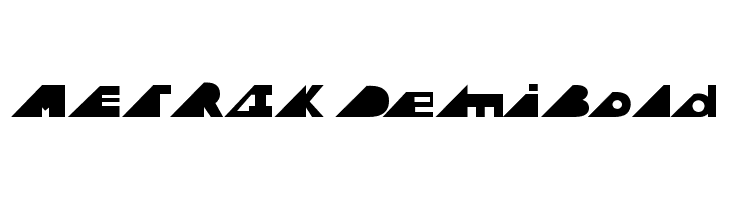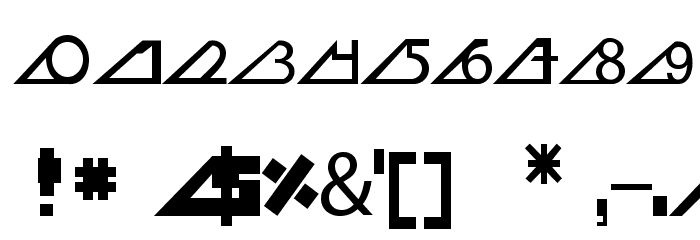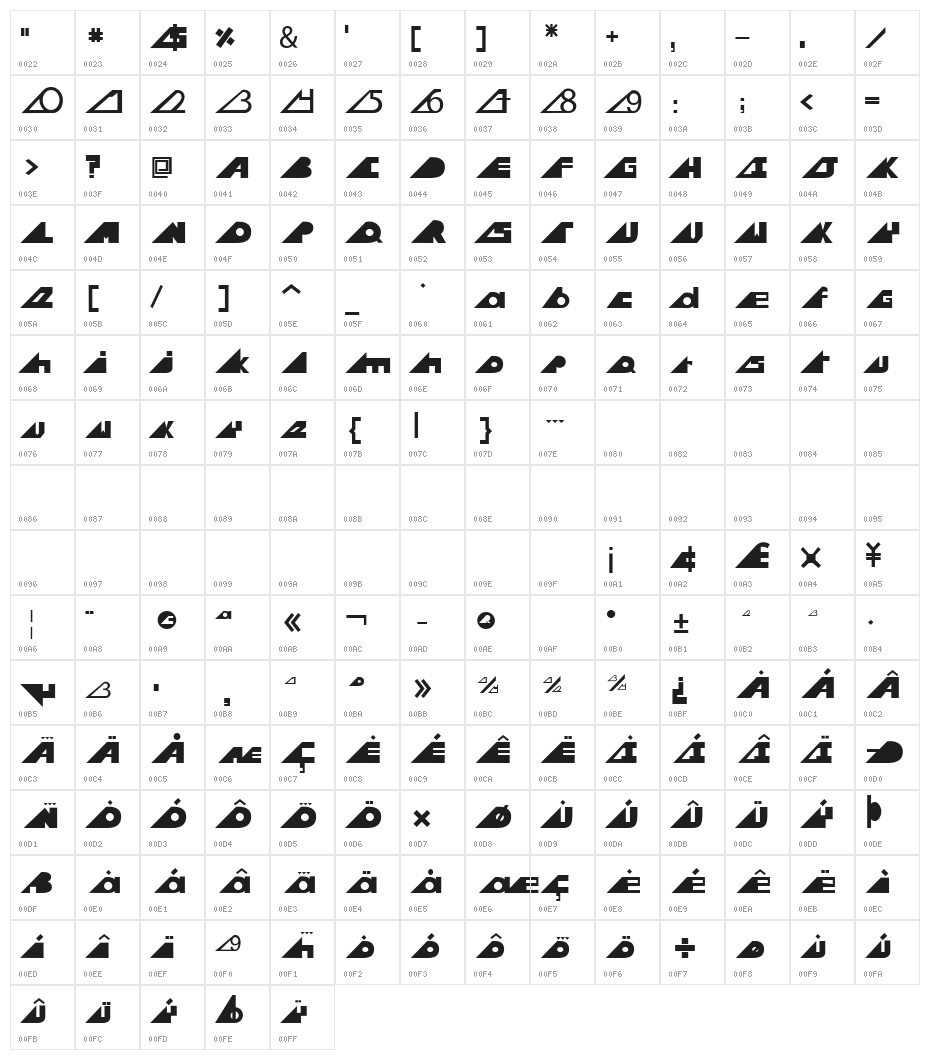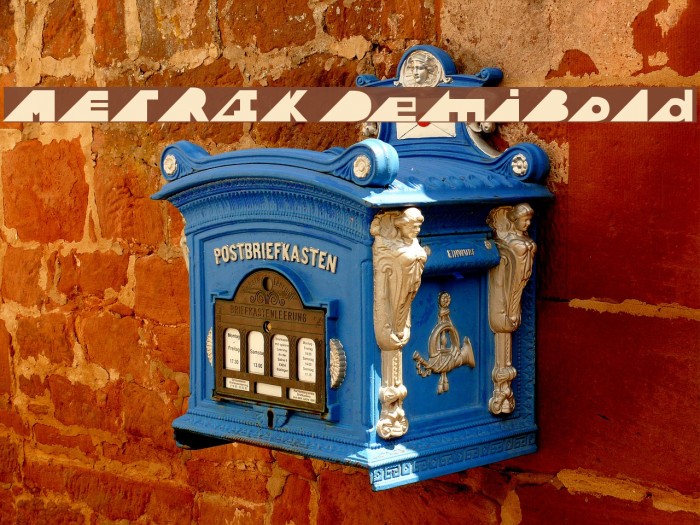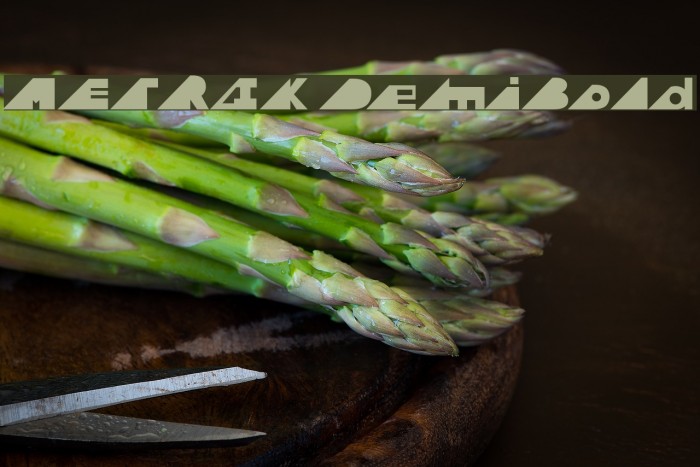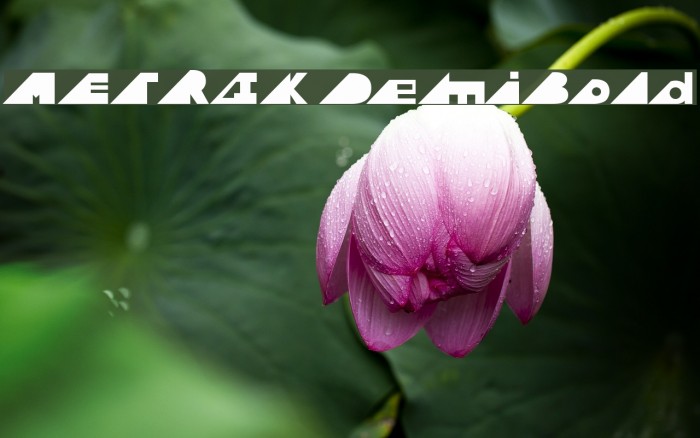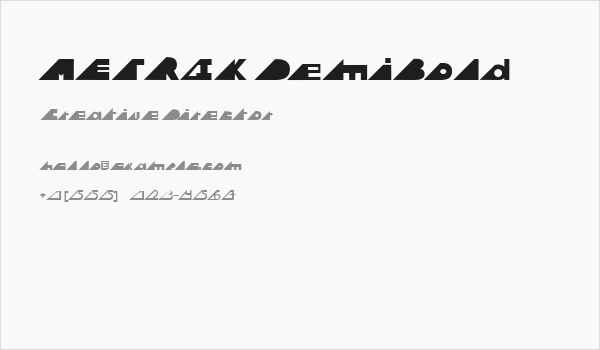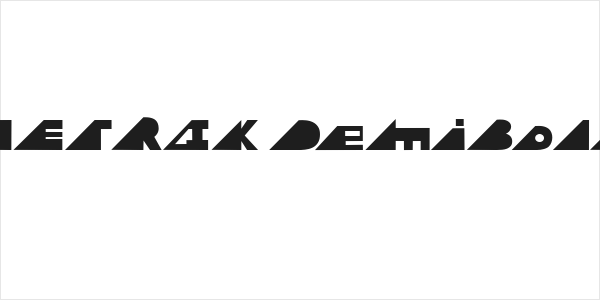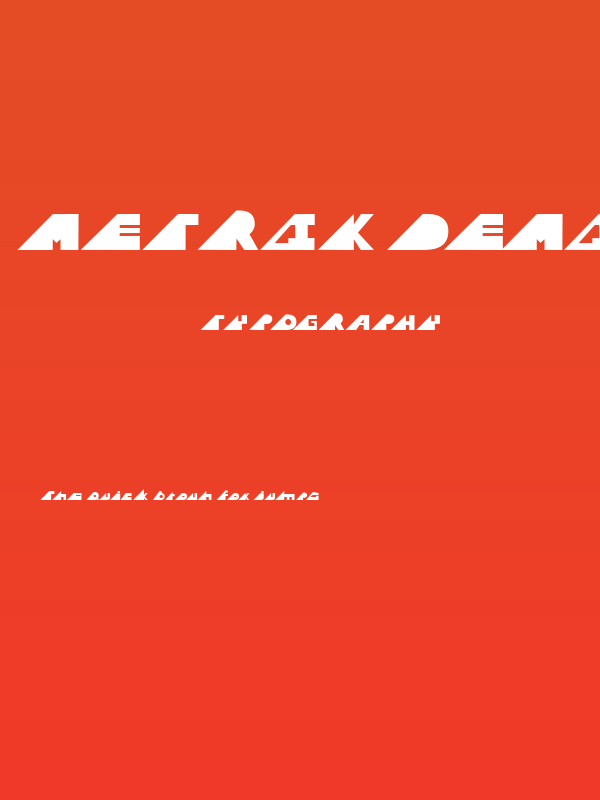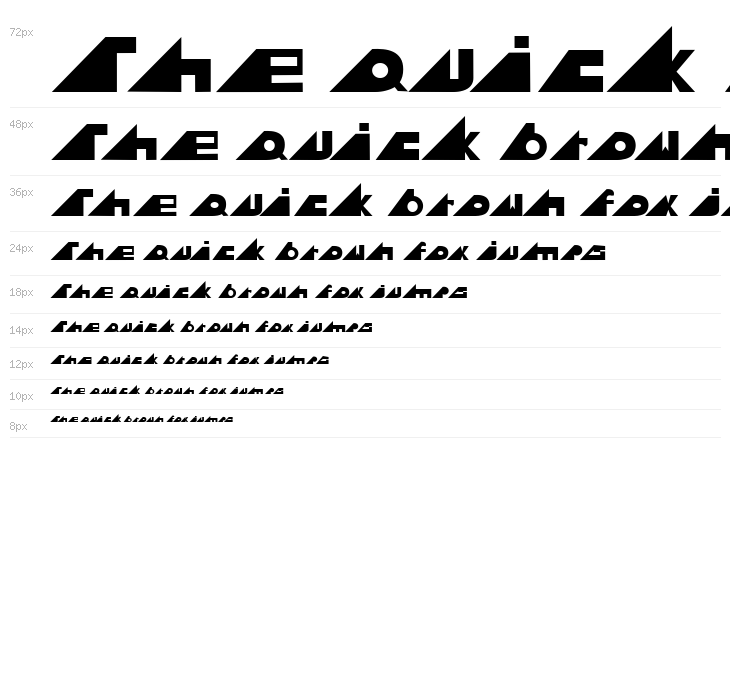
METRIK DemiBold Font
This font features a bold and geometric style with sharp angles and a futuristic aesthetic. The characters are constructed with a mix of solid and negative spaces, creating a dynamic and visually striking appearance. The uppercase letters are particularly angular, while the lowercase letters maintain a consistent geometric form. Numbers and special characters follow the same design principles, ensuring uniformity across all glyphs. The font's unique style makes it suitable for projects that require a modern and edgy look.
| Proposed Projects | Ideal for branding, posters, album covers, and any design needing a modern, edgy aesthetic. |